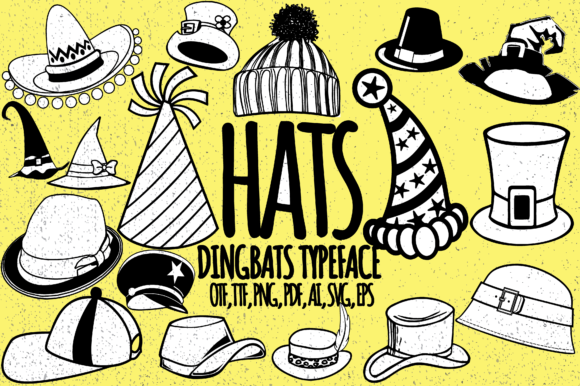
Feast your creative eyes upon "Hats," an extraordinary dingbats font that will transform your digital playground into a stylish hat wonderland! Unleash the fashionista within as you type letters and numbers, and watch in awe as an array of sophisticated headwear materializes before your very eyes.
With "Hats," the possibilities are endless. Design eye-catching logos that brim with personality, craft whimsical invitations adorned with sophisticated hats, or let your imagination run wild as you create captivating social media posts that are sure to turn heads.
Visualize your designs radiating charm and elegance, leaving an indelible impression on your audience. "Hats" possesses an inherent ability to elevate your creative projects to new heights of visual appeal.
Immerse yourself in the captivating world of "Hats," where creativity takes center stage. Whether you're a seasoned designer or just starting your artistic journey, this font will effortlessly guide you toward extraordinary outcomes.
With "Hats" as your creative companion, you'll find yourself effortlessly crafting designs that resonate with your audience, leaving them spellbound by your artistic prowess. Let your imagination soar and embark on a creative adventure like no other.
Indulge in the allure of "Hats," the dingbats font that will redefine your design aesthetic. Its captivating nature will leave you mesmerized, eagerly anticipating your next creative endeavor.
Step into a world where design dreams come true. Let "Hats" be your creative muse, guiding you toward masterpieces that will leave your audience in awe. Dive into the realm of endless possibilities and unlock a treasure trove of design inspiration.